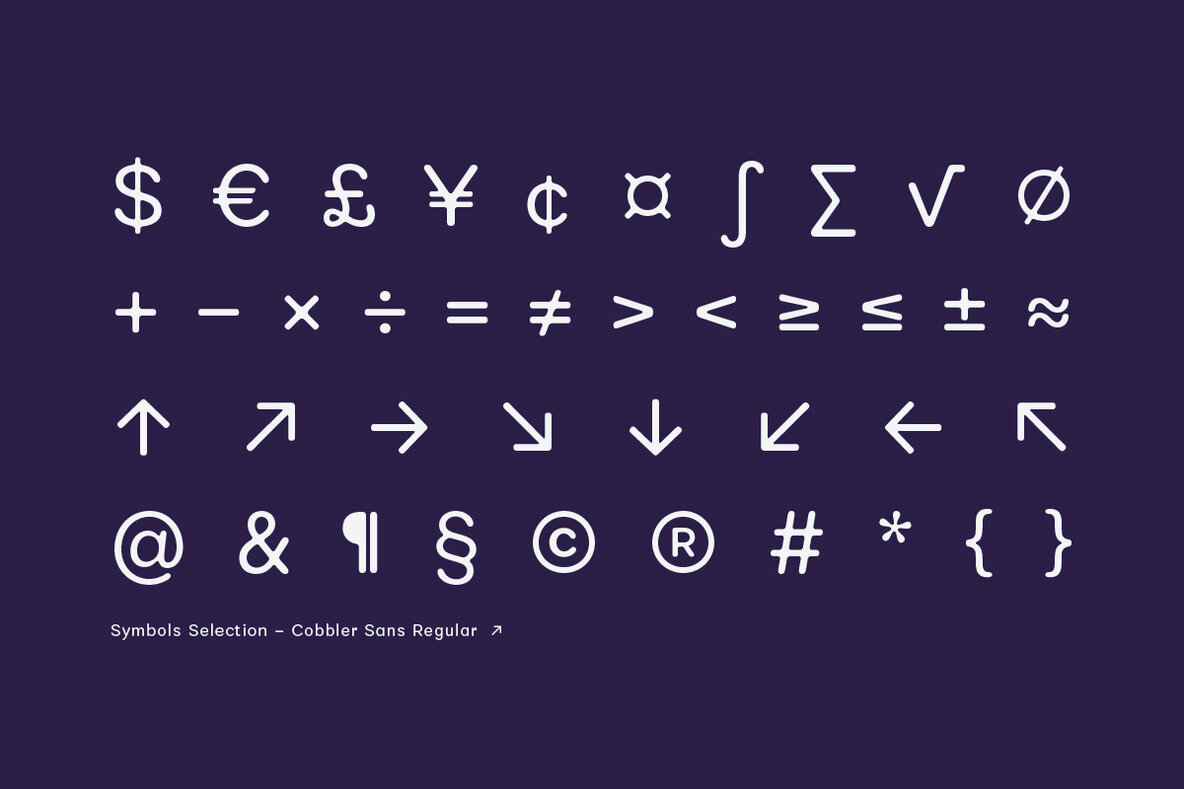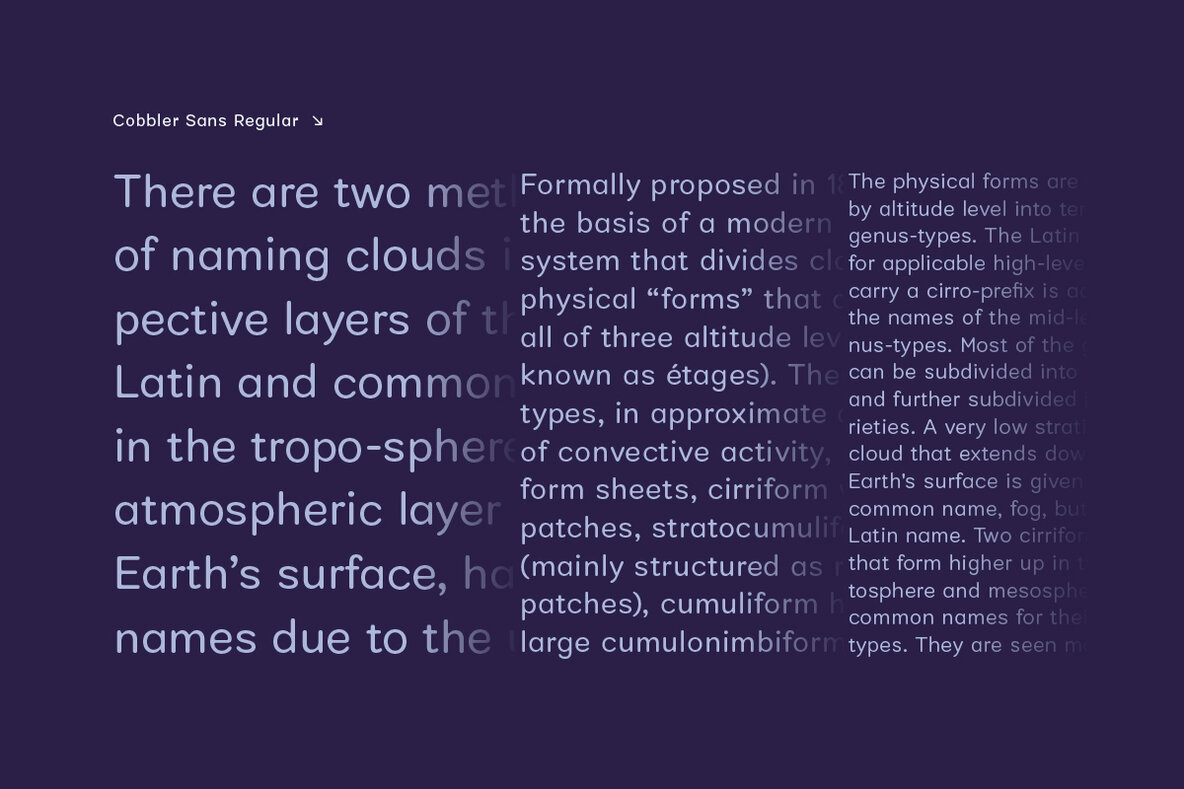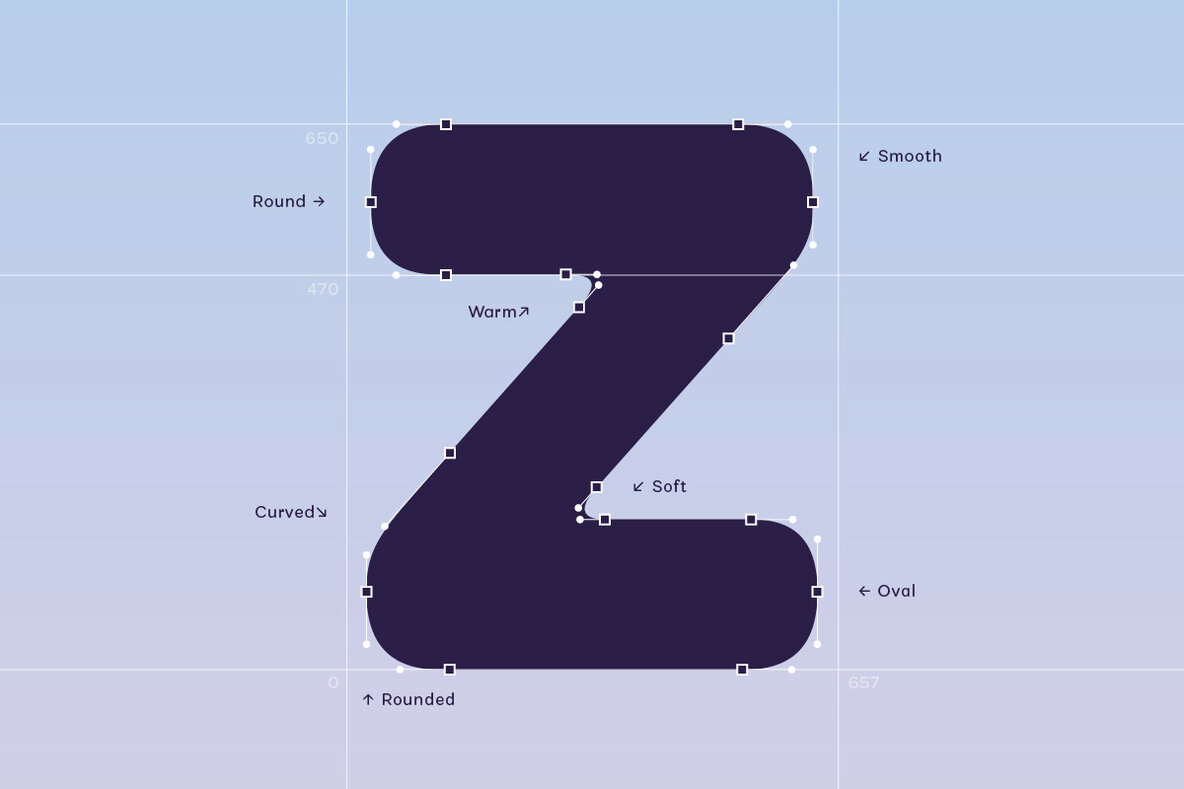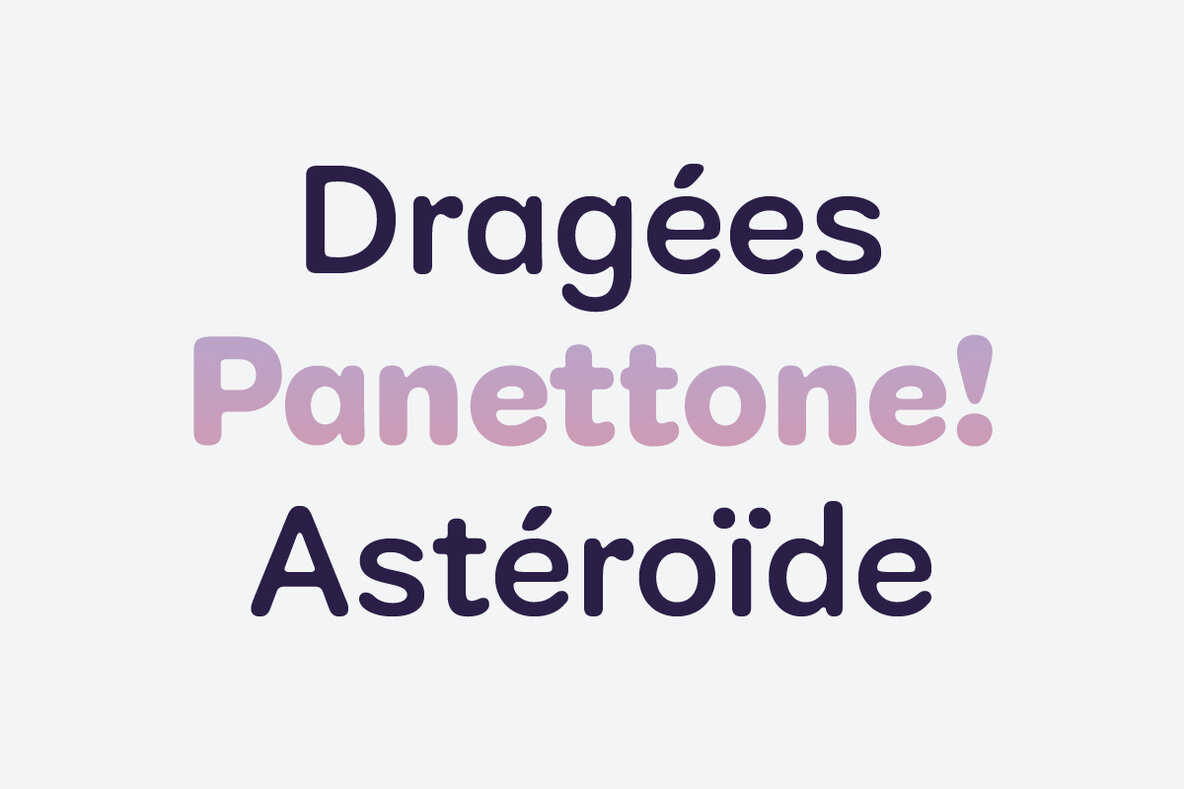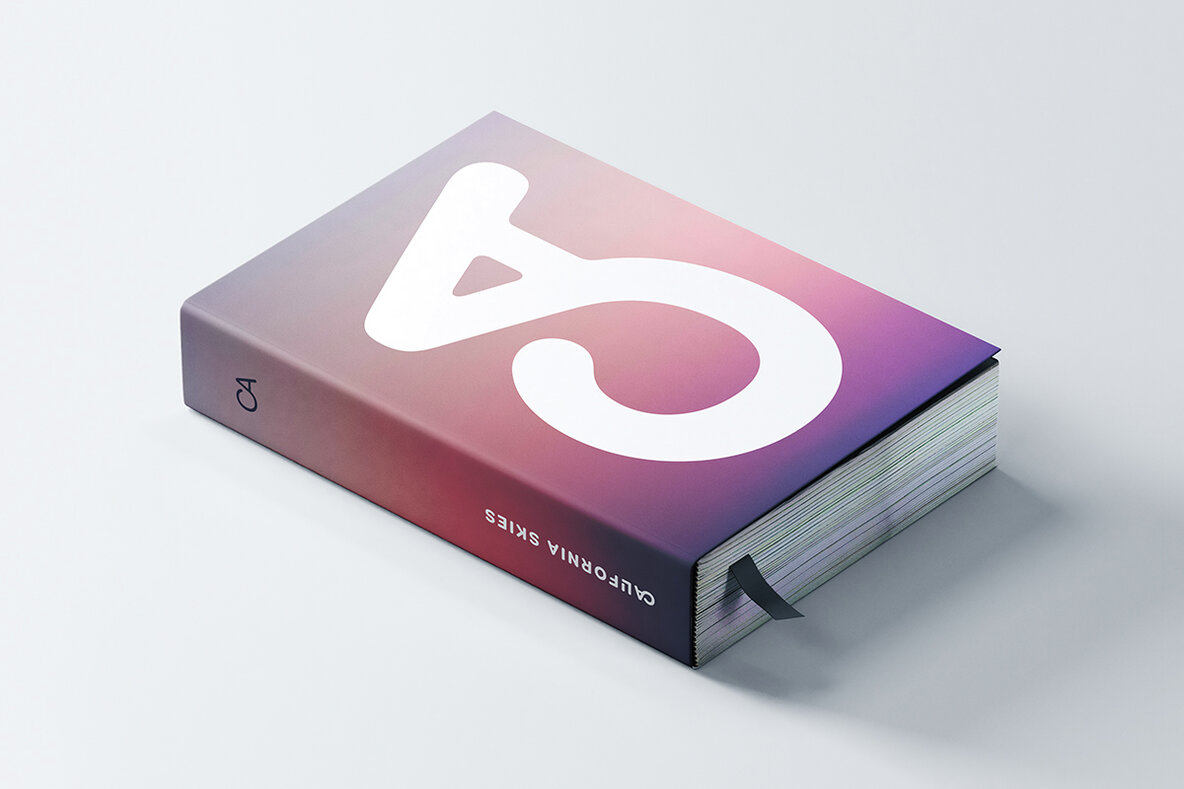
Cobbler Sans Font
Cobbler Sans is a friendly type family in six weights and the humble cousin to Cobbler. With its rounded aspect and proportions of geometric type Cobbler Sans is expressively soft and contemporary. All terminals are shaped organically and even inner corners are rounded. The few remaining straight lines give the typeface the stability of a workhorse while keeping the gooey playfulness that characterizes the entire Cobbler family so much. In addition there is a pile of OpenType features built in. For example loads of discretionary ligatures that make capital letters interlock left and right. Other features include automatic fractions, case sensitive punctuation and contextual alternates. Cobbler Sans works great for branding, packaging, editorial or any display application – and it comes with an expansive character set that covers over 200 languages. Furthermore Cobbler Sans is manually kerned and auto-hinted for crisp display on screen also in small sizes.